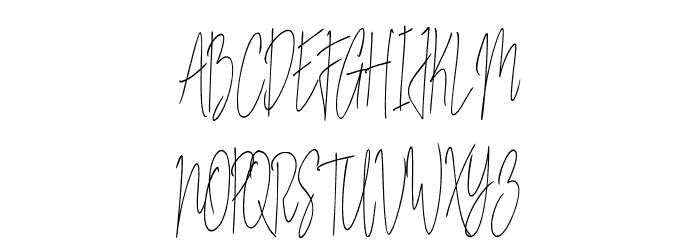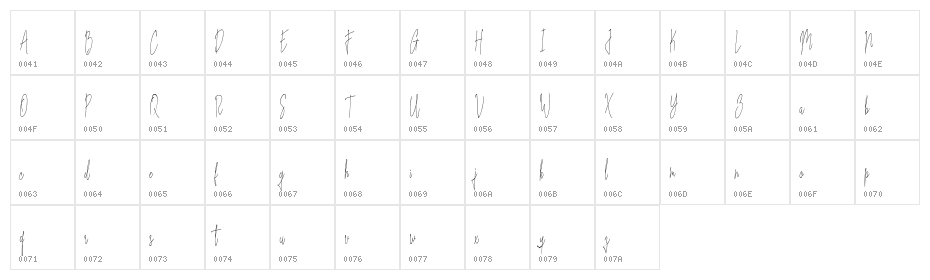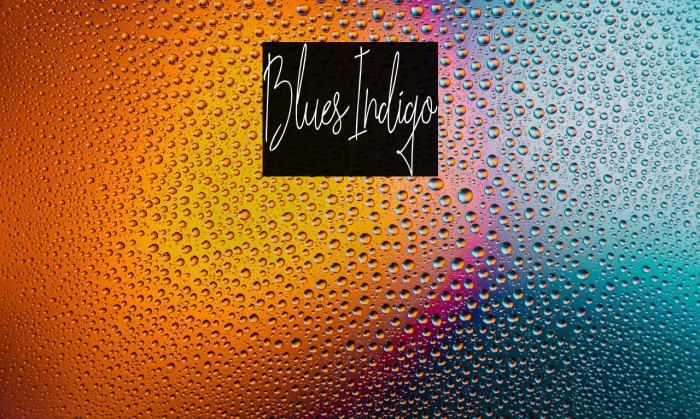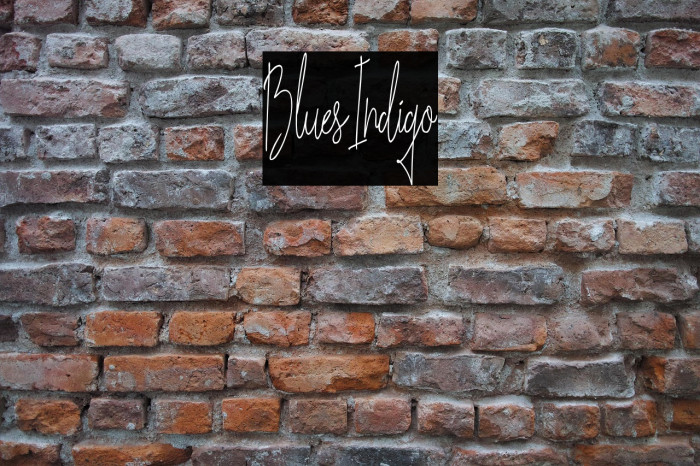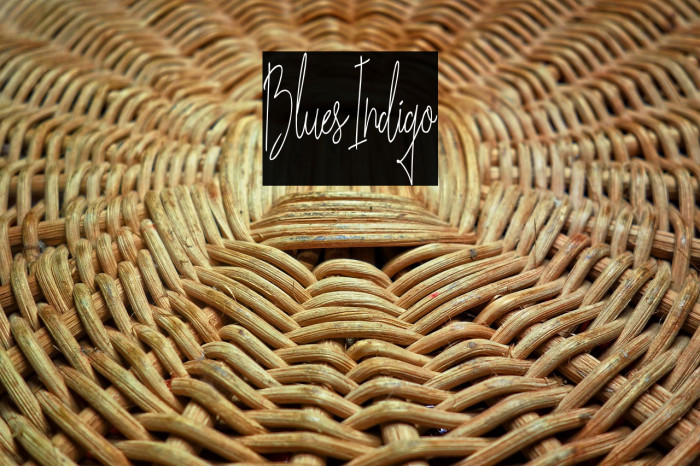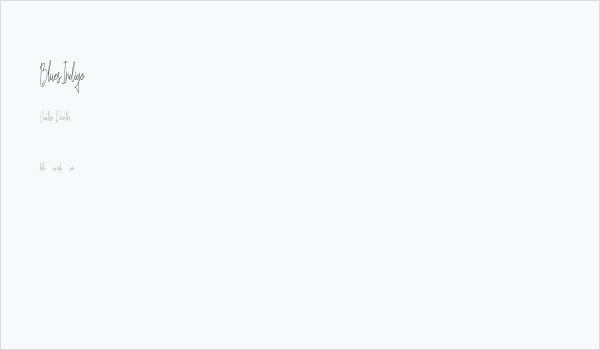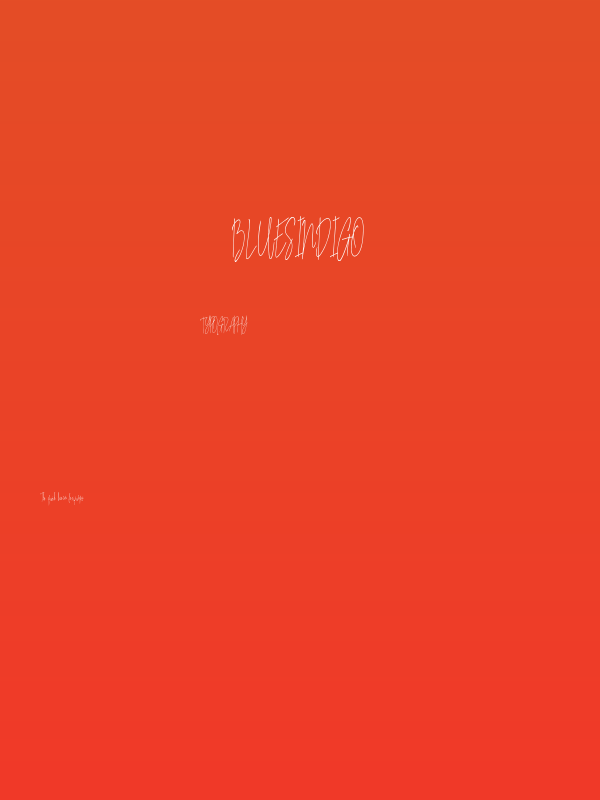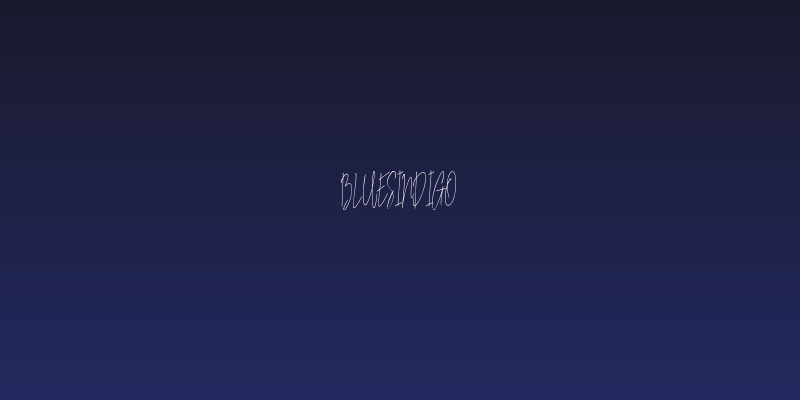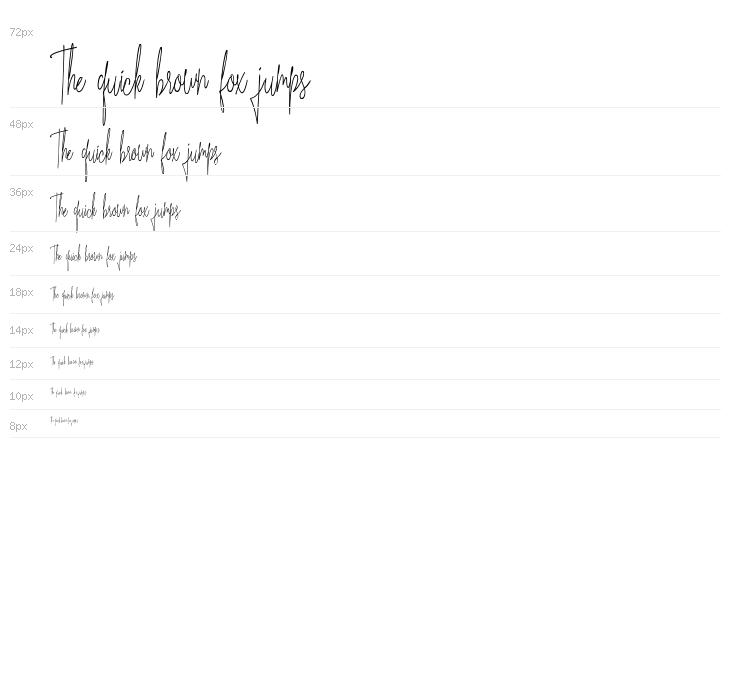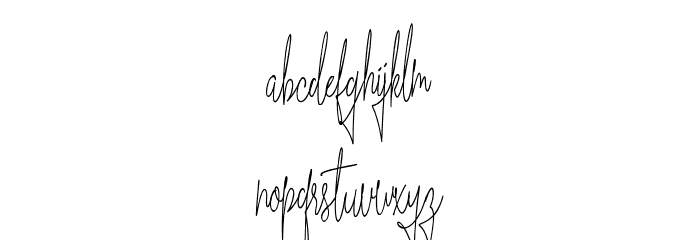
BluesIndigo Font
BluesIndigo Description
This font features a flowing, cursive style that mimics elegant handwriting. The letters are interconnected with smooth, sweeping strokes, giving it a dynamic and fluid appearance. The uppercase letters are tall and slender, while the lowercase letters maintain a consistent flow, enhancing readability despite the script style. The font exudes a sense of sophistication and grace, making it suitable for projects that require a personal touch. Its delicate lines and artistic flair make it ideal for invitations, greeting cards, and branding that seeks to convey elegance and creativity.
| Overall Style | Elegant, Artistic |
| Use Case | Invitations, Greeting cards, Branding |
| Proposed Projects | Ideal for wedding invitations, greeting cards, personal branding, and elegant logos. |